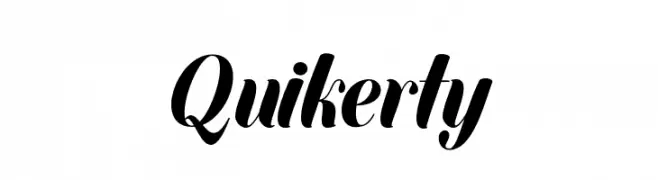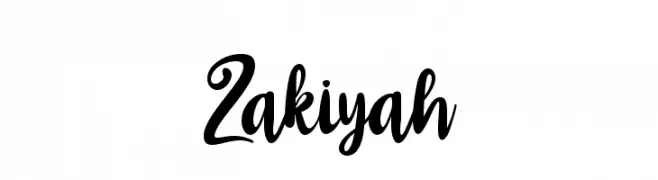
A bold, oblique font with a modern, dynamic style.
A classic serif font with bold strokes and high contrast, exuding sophistication.
A bold, expressive handwritten script with fluid, connected letters.
A bold, elegant script font with flowing, cursive letterforms.
A playful, hand-drawn style font with bold, consistent strokes.
A bold, expressive script font with interconnected characters and dynamic flow.
A bold, distressed font with a gritty, rock-inspired aesthetic.
An elegant script font with flowing cursive style and intricate swashes.
A bold, brush-style font with dynamic, hand-painted strokes.
A lively, expressive script font with bold, cursive letterforms.